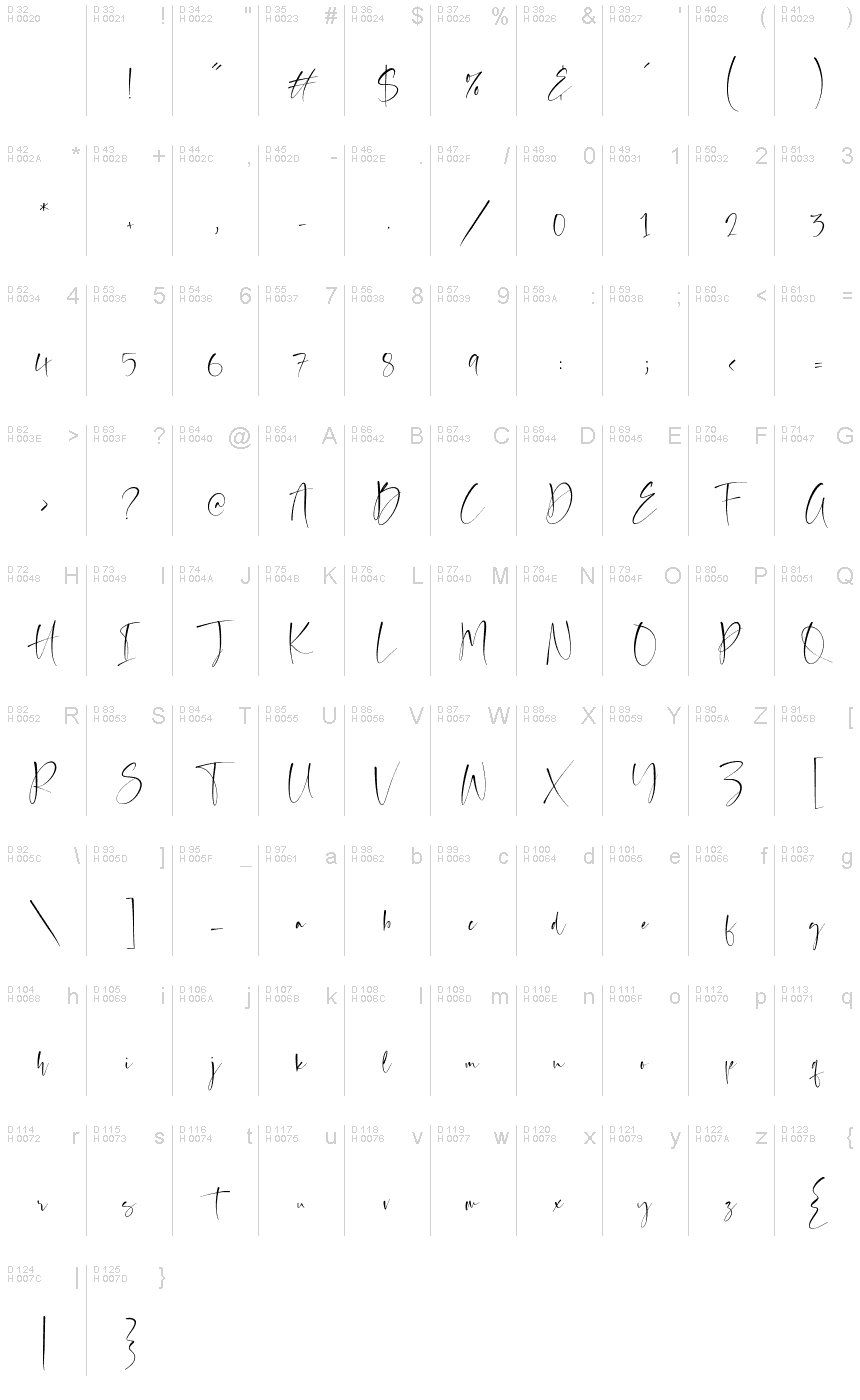
Auguste Boutique
Auguste Boutique, crafted by Balpirick Studio, is an exquisite handwritten font with a signature style. Its light weight lends an air of elegance and sophistication to any project.
Perfectly suited for wedding invitations, luxury brand logos, and fashion editorials, Auguste Boutique exudes a sense of refined beauty. Whether used for stationery design or branding campaigns, this font will effortlessly elevate your creations with its graceful curves and impeccable craftsmanship.
Experience the timeless charm of Auguste Boutique and let it leave a lasting impression on your audience.